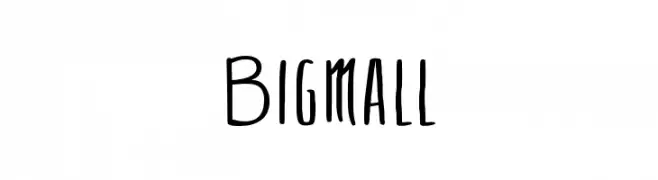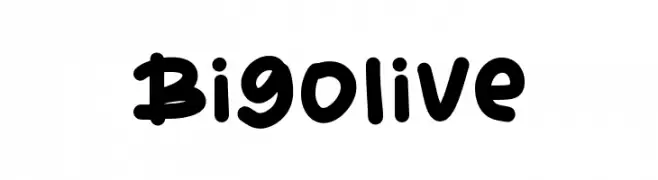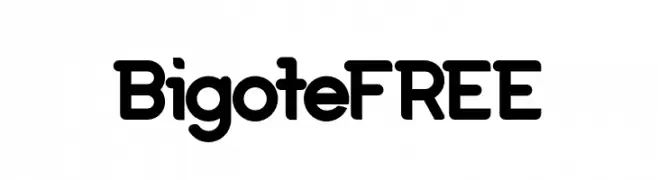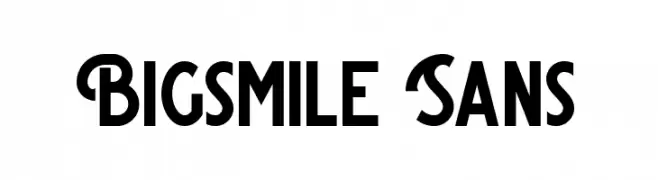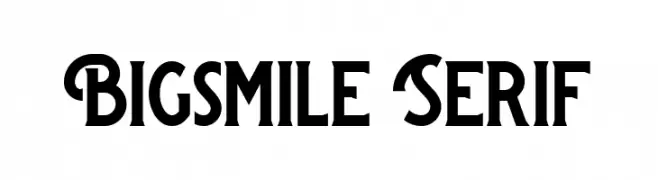
A playful, handwritten font with tall, narrow uppercase letters and smooth strokes.
An elegant, cursive font with intricate loops and swashes, perfect for artistic projects.
A bold, playful handwritten font with rounded edges and a casual style.
A bold, rounded font with smooth curves and a modern, friendly style.
A bold, playful font with rounded edges and a modern, friendly style.
A bold, dynamic script font with sweeping curves and fluid strokes.
A bold, dynamic script font with a 3D extruded effect, perfect for impactful designs.
A dynamic and elegant script font with fluid, sweeping strokes.
A playful and bold font combining decorative and sans-serif elements.
A bold serif font with playful curves and strong presence.